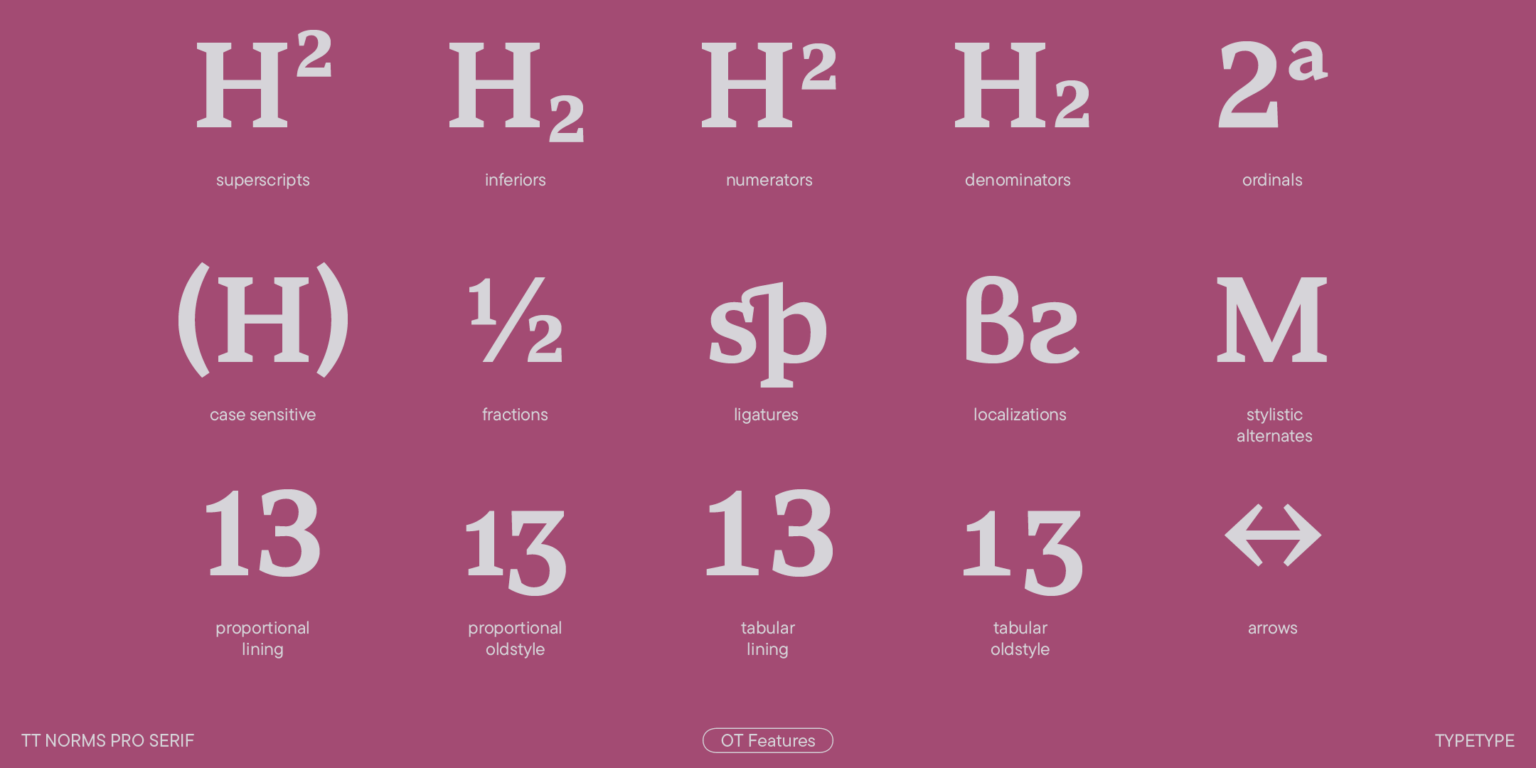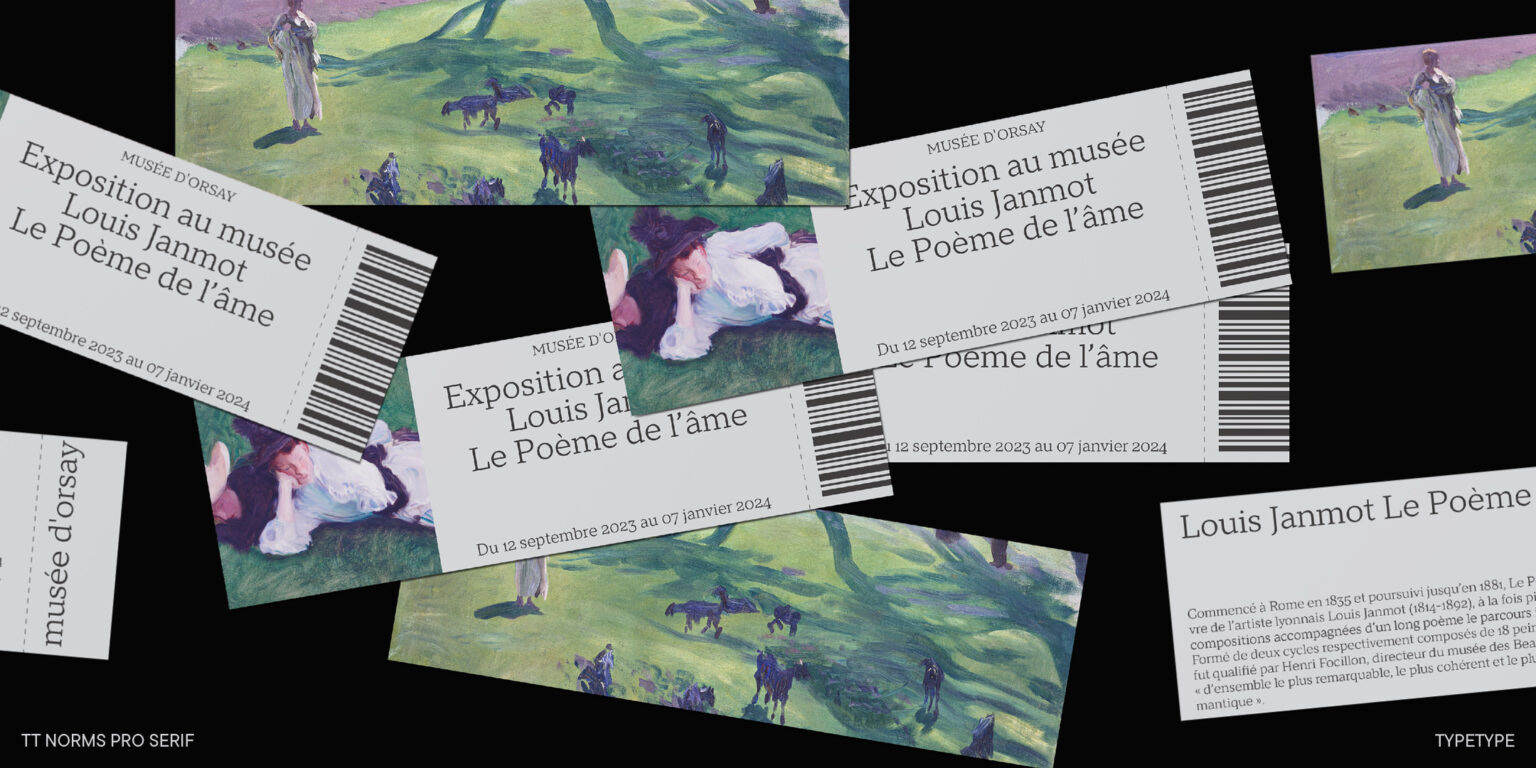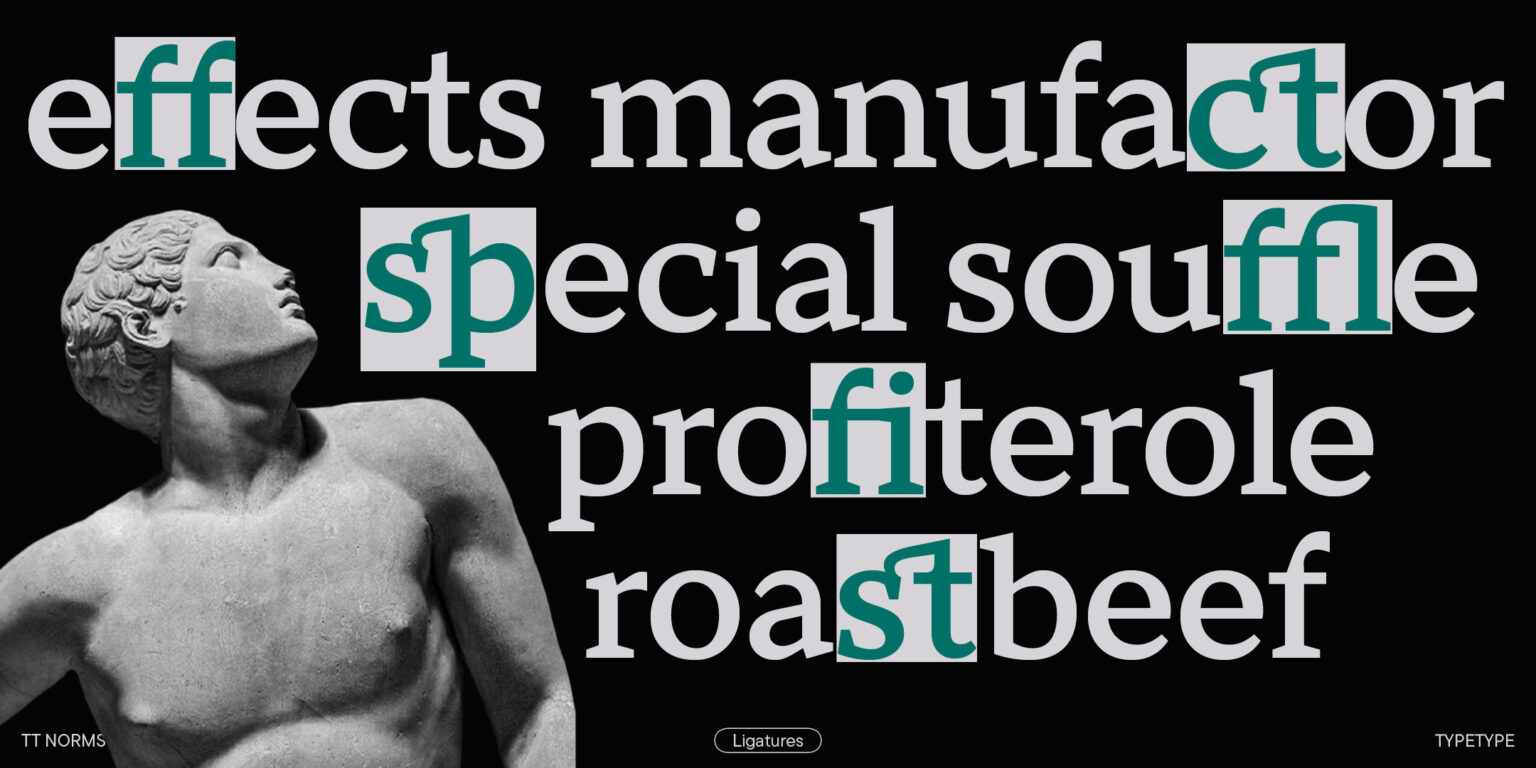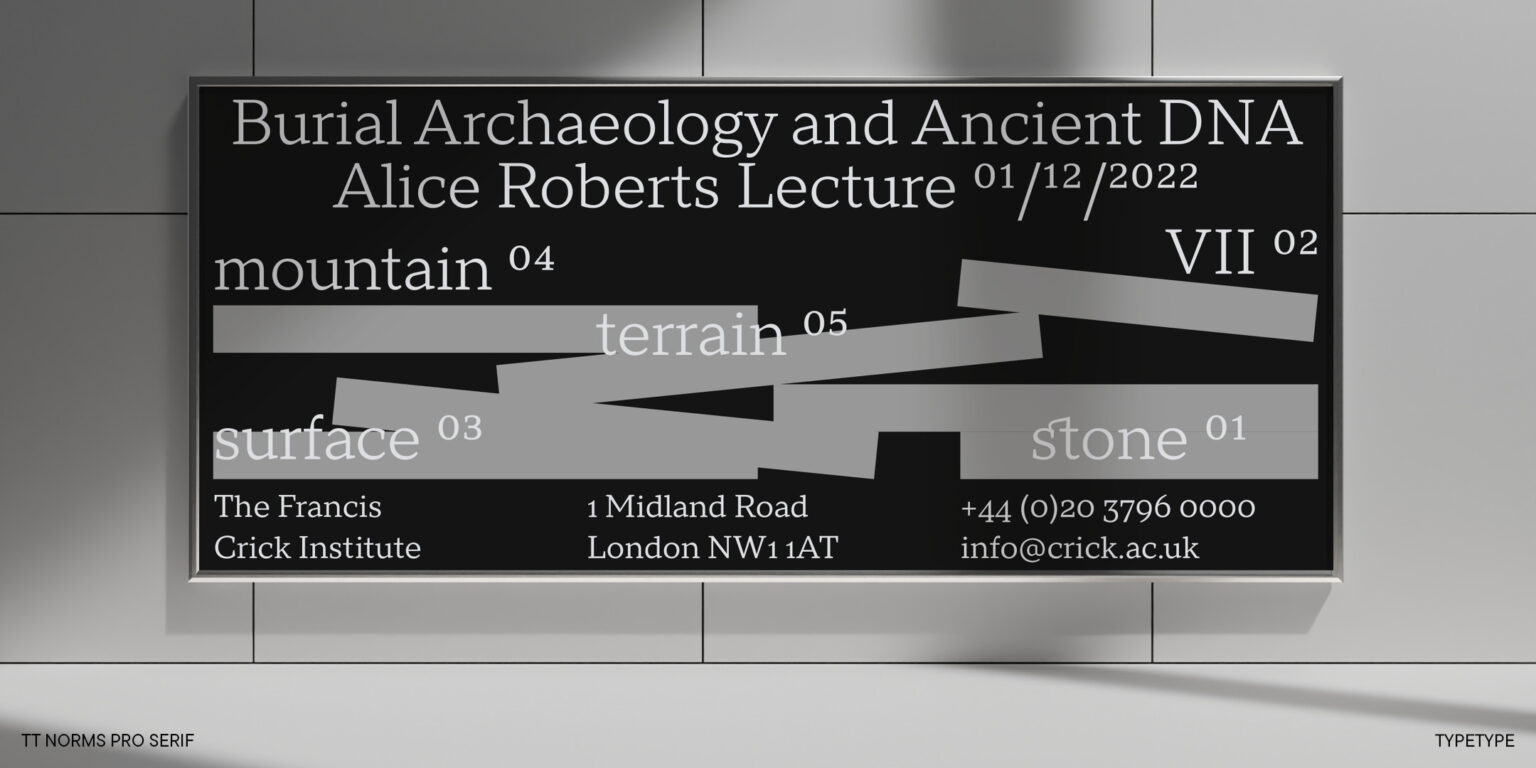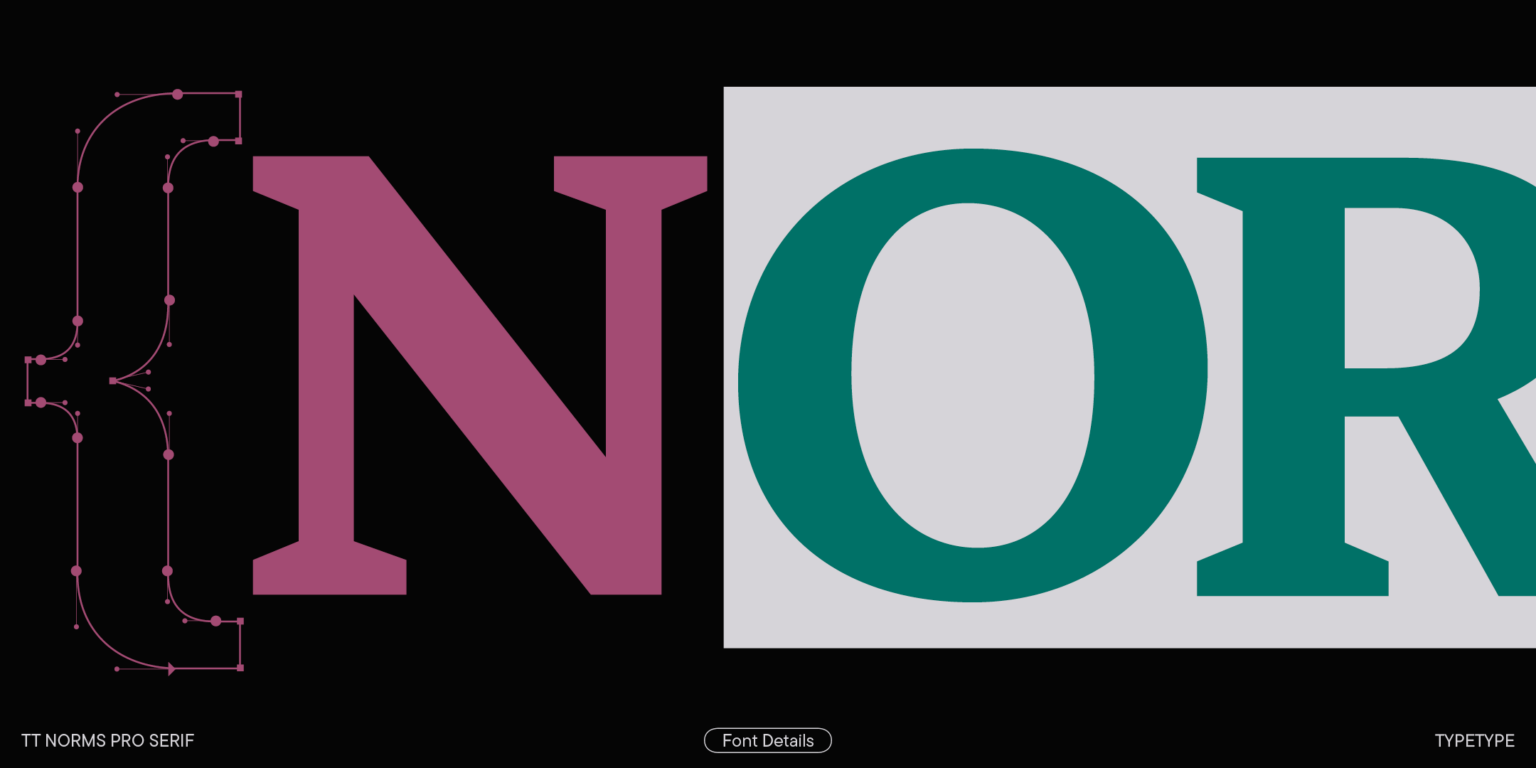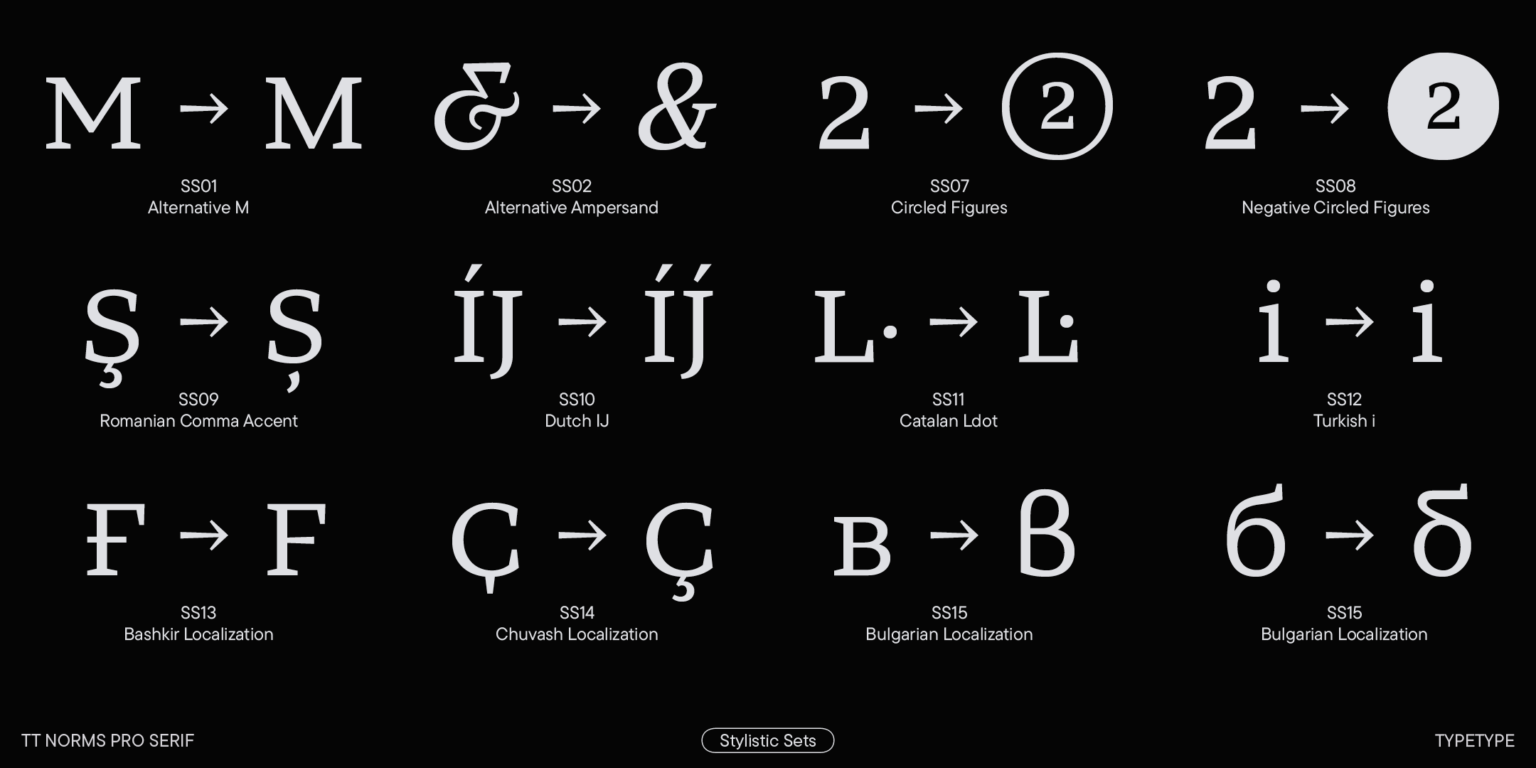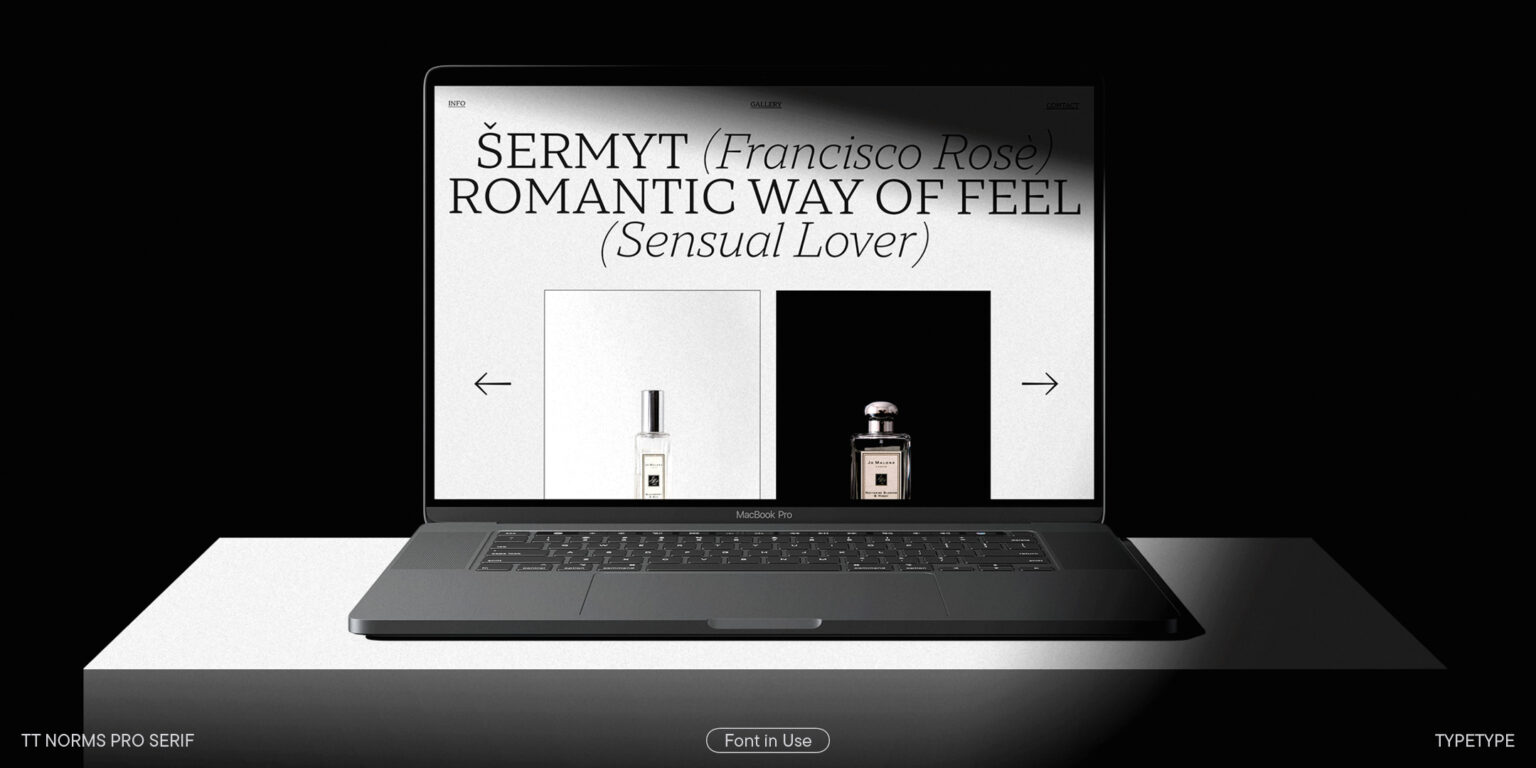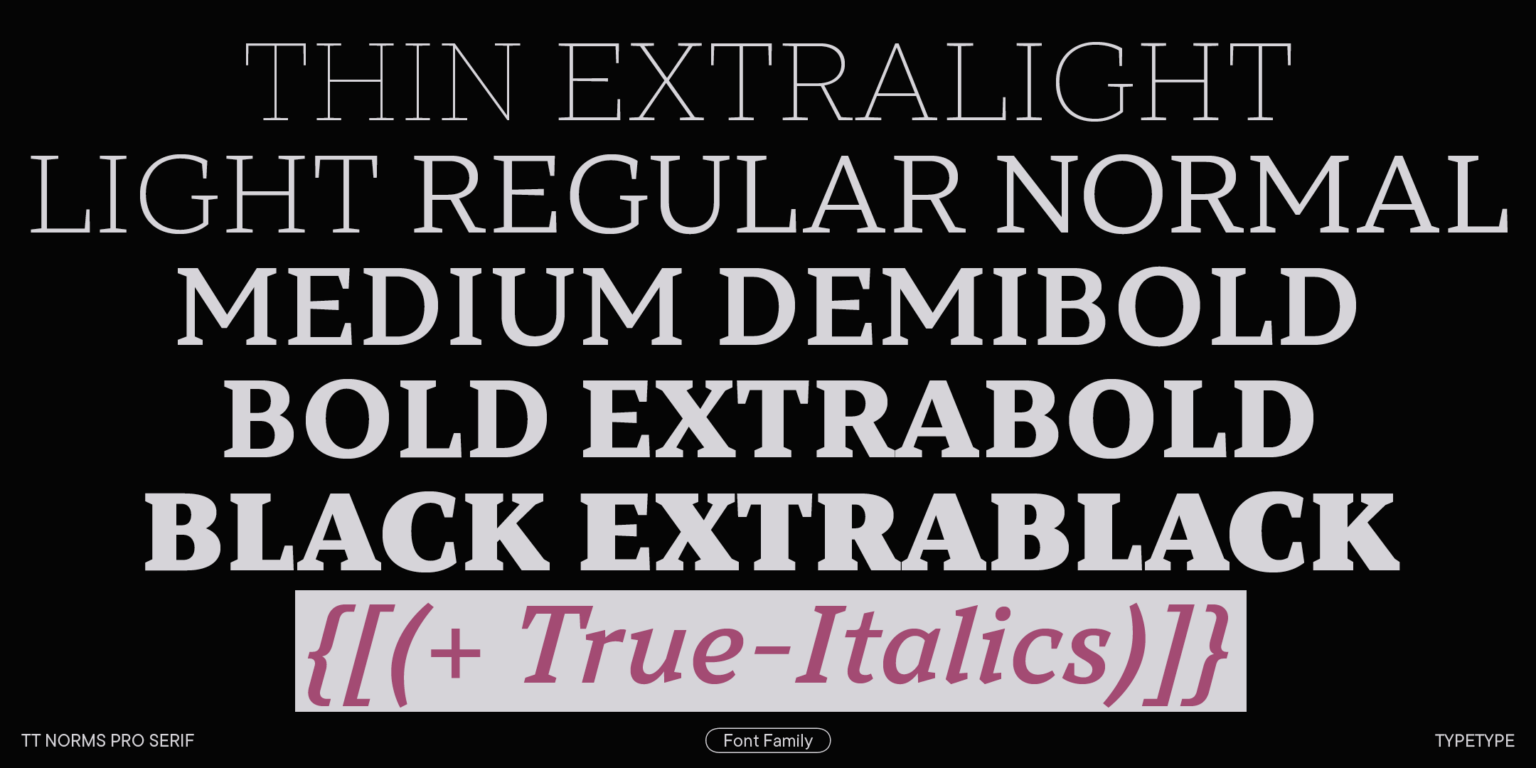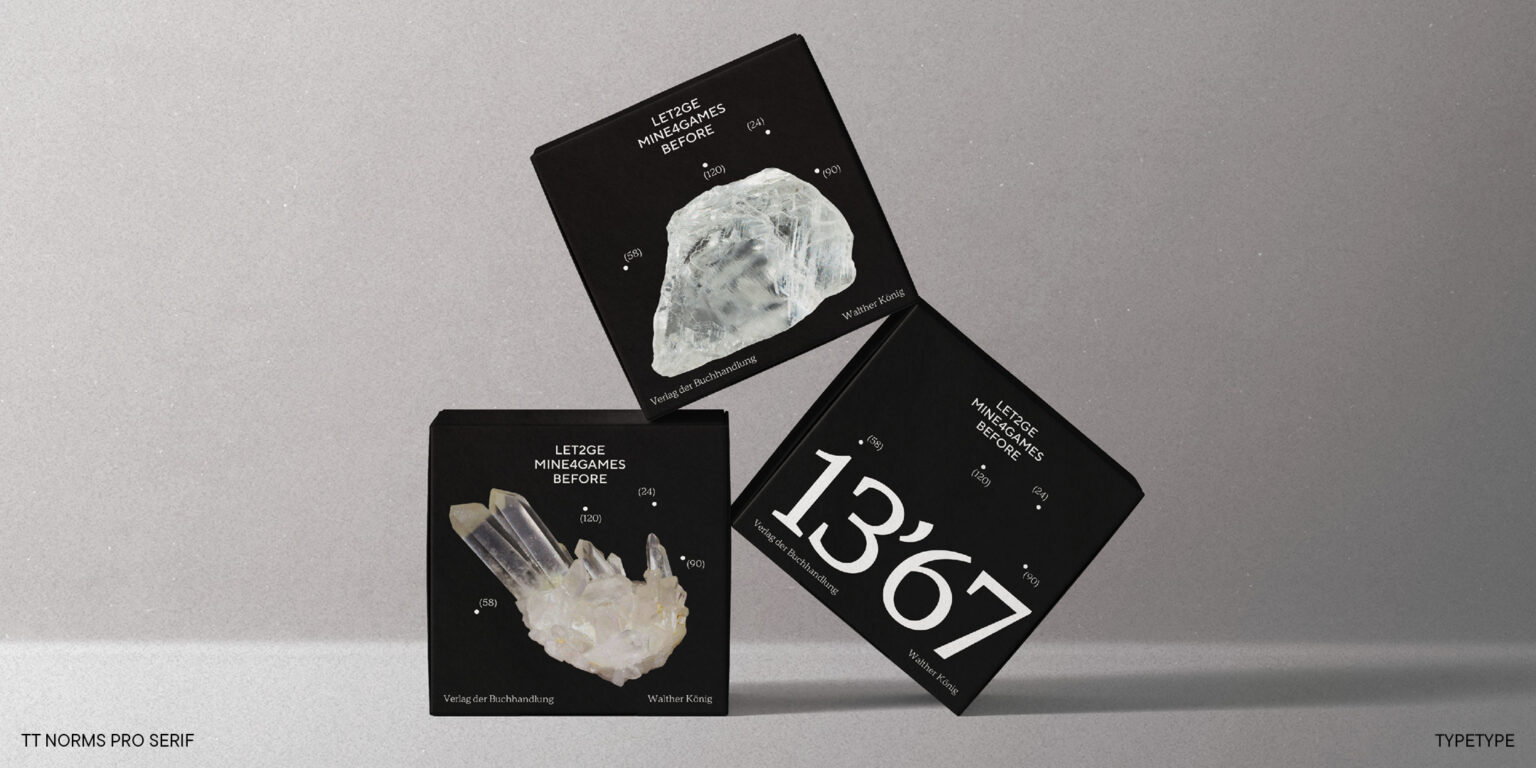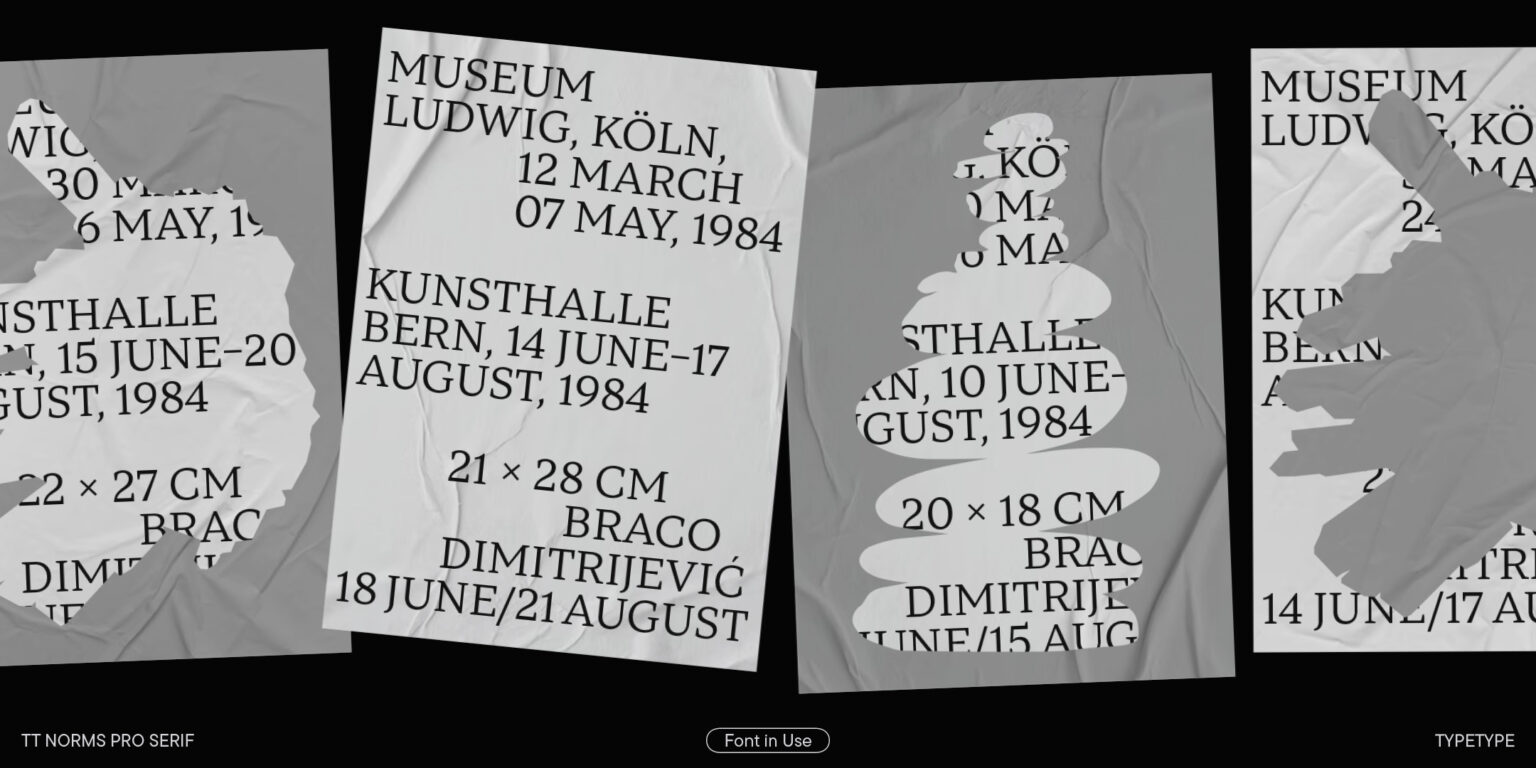
TT Norms® Pro Serif
TT Norms® Pro Serif is a functional yet elegant serif with neutral character. Developed based on the bestselling TT Norms® Pro.
TT Norms Pro Serif—the perfect match for the famous TypeType sans serif
At the end of 2021, we thought of designing a serif to complement our bestseller TT Norms® Pro. It took us a full year to create the font. This development process has resulted in a serif easily recognizable by its low-contrasted proportions, slanted oval axis, dynamic widths, and contrast in diagonals. TT Norms Pro Serif is not just an expansion; it’s a complete serif based on the functional sans TT Norms® Pro. Our new serif is a perfect fit for websites, book layouts, or packaging design. In 2023, we significantly upgraded this font family, adding several new languages and OpenType features.
Introducing TT Norms® Pro Serif, version 1.100! The updated font now has new OpenType features and localization for the Serbian and Bulgarian languages.
TT Norms® Pro Serif is a functional serif based on our studio’s main bestseller—the versatile sans serif TT Norms® Pro. Together, they form an ideal font pair. Although these typefaces are made for each other, they can easily be used independently and paired with other fonts.
So, TT Norms® Pro Serif is a self-sufficient and elegant serif, neutral at the same time. It is easy to recognize due to its gentle proportion dynamics, open aperture, slanted oval axis, and low stroke contrast. Another distinctive feature of this font is brutal serifs that adjust in length according to the weight of the font.
As well as TT Norms Pro, there are Italic font styles in TT Norms® Pro Serif. However, for this serif, we have designed true italics instead of simple slanted font styles. Their key feature is the ability of the lowercase letterforms to change in reference to the roman font styles. They become more rounded, moving towards handwritten shapes. The nature of the italics turned out sharper than that of the roman font styles. It can be used to place accents that would attract attention without interfering with the process of reading.